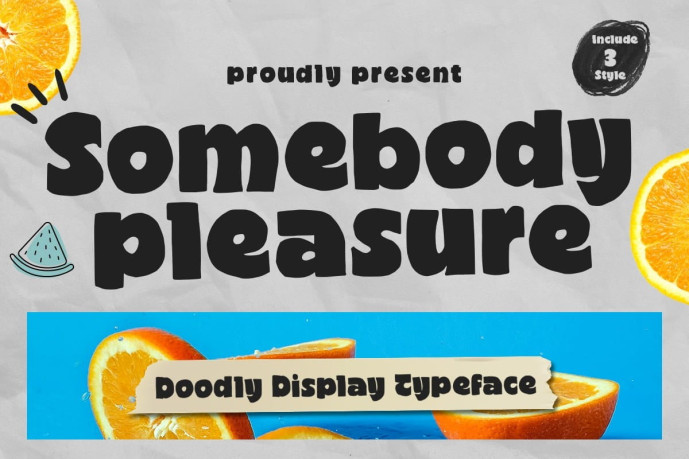
Somebody Pleasure Font is a hand-crafted font created with brushes and ink. This font is ideal for bold watercolor or handwritten styles, such as blog titles, posters, weddings, elements, books, covers, business cards, greeting cards, branding, merchandise, and more.